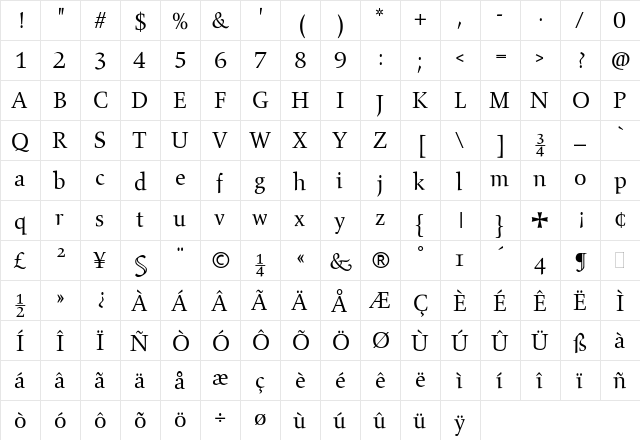
GilgameshBook Regular
Design Context for GilgameshBook Typeface
GilgameshBook is a composed and adaptable typeface that performs quietly and consistently across a wide range of design contexts.